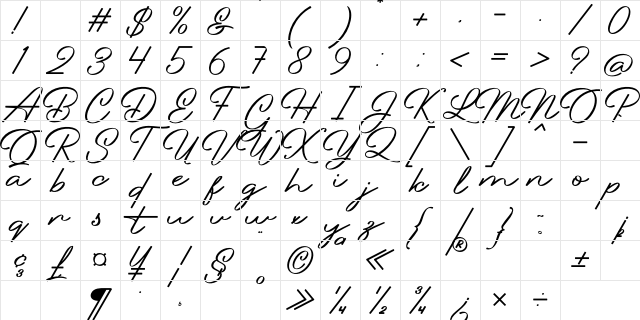
Waiting Awakmu Regular Free Font
Waiting Awakmu Regular
Foundry: RGB Studio
Designer: MOH. MA'IN
Design Context for Waiting Awakmu
Waiting Awakmu is a composed and adaptable typeface that performs quietly and consistently across a wide range of design contexts.